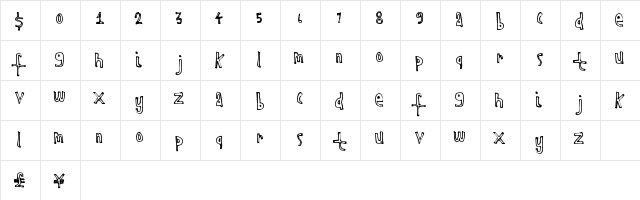
KidsOutline Regular
| Foundry | Xerographer Fonts |
| Designer | Max Infeld |
Design Context for KidsOutline Typeface
KidsOutline has an approachable, lighthearted character — its loose, expressive forms are well-suited to children's content, casual branding, and fun-first design.
Font Pairing: Pairs well with a rounded or humanist sans for body copy, maintaining the friendly tone without relying on KidsOutline to carry extended reading.
Pro Tip: Avoid using KidsOutline for long passages of text — it works best for headlines, labels, and short calls to action.